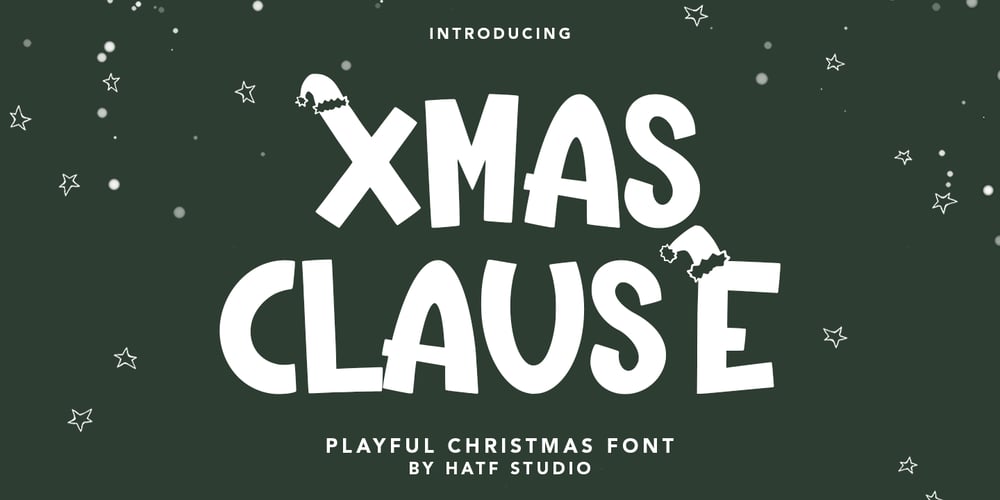
Xmas Clause
Xmas Clause font
Xmas Clause Font Family was designed by Asep Rendi and published by Hatftype. Xmas Clause contains 1 styles and family package options. Xmas Clause – Playful Christmas Font is a font with distinctive handwritten characters perfect for branding projects, logos, wedding designs, media posts, advertisements, product packaging, product designs, labels, photography, watermarks, invitations, stationery, and any project who need handwritten dishes.Features : • Character Set A-Z • Numerals & Punctuations (OpenType Standard) • Accents (Multilingual characters) • LigatureMultilingual Support : Afrikaans, Albanian, Asu, Basque, Bemba, Bena, Catalan, Chiga, Cornish, Danish, English, Estonian, Faroese, Filipino, Finnish, French, Friulian, Galician, German, Gusii, Icelandic, Indonesian, Irish, Italian, Kabuverdianu, Kalenjin, Kinyarwanda, Low German, Luo, Luxembourgish, Luyia, Machame, Makhuwa-Meetto, Makonde, Malagasy, Malay, Manx, Morisyen, North Ndebele, Norwegian Bokmål, Norwegian Nynorsk, Nyankole, Oromo, Portuguese, Romansh, Rombo, Rundi, Rwa, Samburu, Sango, Sangu, Scottish Gaelic, Sena, Shambala, Shona, Soga, Somali, Spanish, Swahili, Swedish, Swiss German, Taita, Teso, Vunjo, Zulu.There it is. I really hope you enjoy it. Comments & likes are always welcome and accepted. More importantly, don’t hesitate to send a message if you have a problem or question.Now just read this, go there and make it happen.